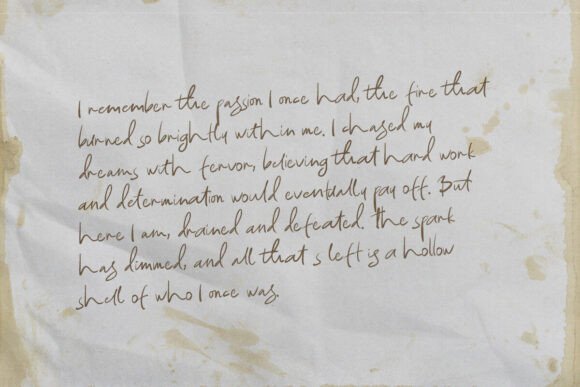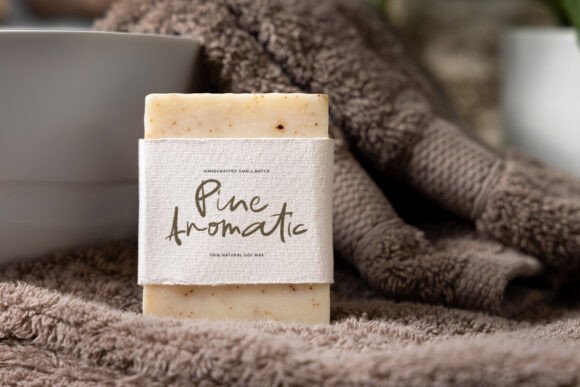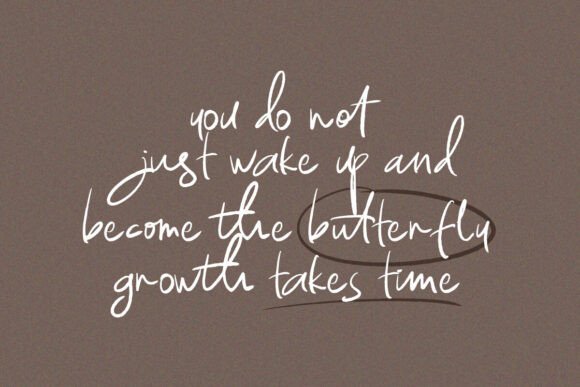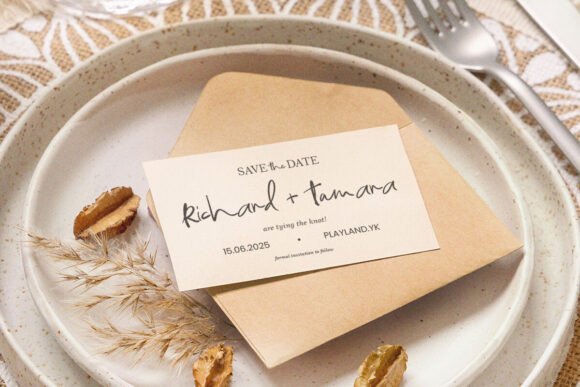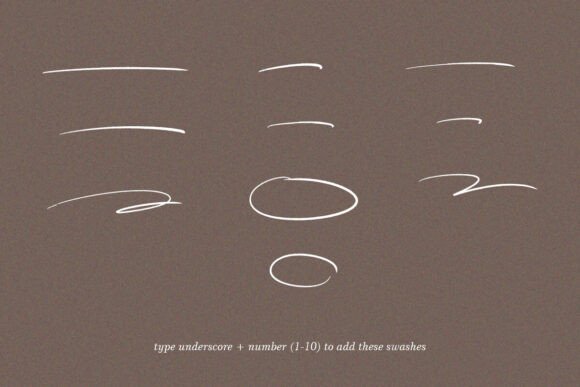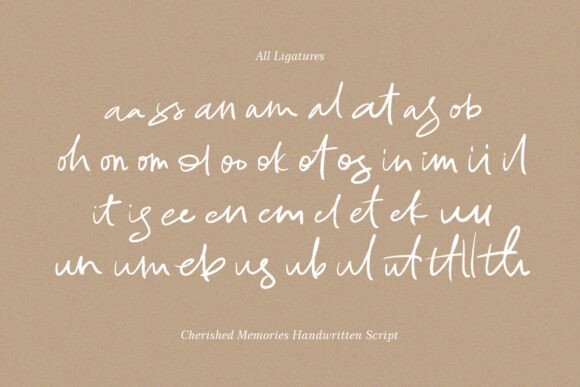
Introduction to Cherished Memories Font Font
Fonts play a crucial role in design, and the Cherished Memories Font font is a typeface that brings both character and versatility to any project. Whether you’re working on a branding project, a website, or a print design, the Cherished Memories Font font offers a unique style that can elevate your work.
Meet Cherished Memories, the hand-drawn font that exudes effortless freestyle and chic sophistication.
This font is perfect for adding a touch of elegance to any design project, especially in logo, and the other various formal forms such as invitations, labels, logos, magazines, books, greeting / wedding cards, packaging, fashion, make up, stationery, novels, labels or any type of advertising purpose .
Key Features of Cherished Memories Font Font
Why Choose Cherished Memories Font Font?
The Cherished Memories Font font is more than just a typeface – it’s a design tool that helps you communicate your message with style and clarity. Its unique character set and versatile design make it suitable for a wide range of applications, from elegant invitations to bold headlines.
With its carefully crafted letterforms and balanced proportions, the Cherished Memories Font font ensures readability and visual appeal across all mediums.
What makes Cherished Memories Font font special?
The Cherished Memories Font font stands out with its unique design, exceptional readability, and versatility across various design applications.